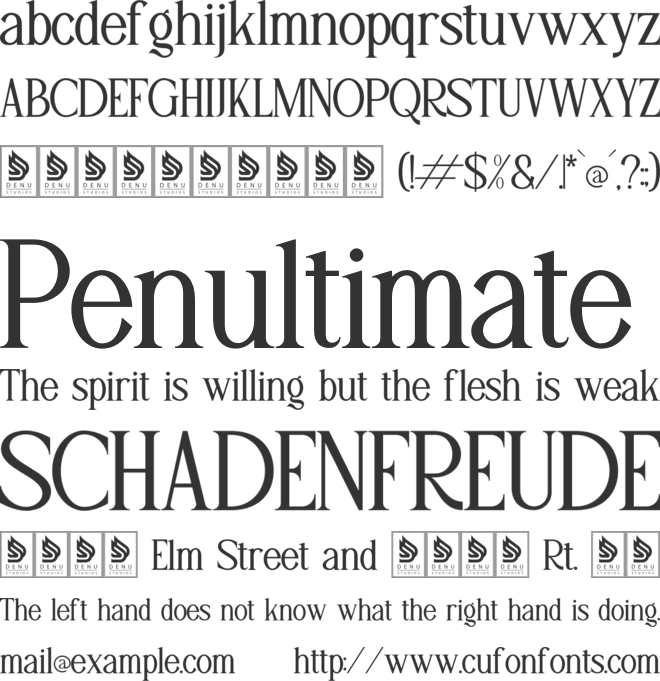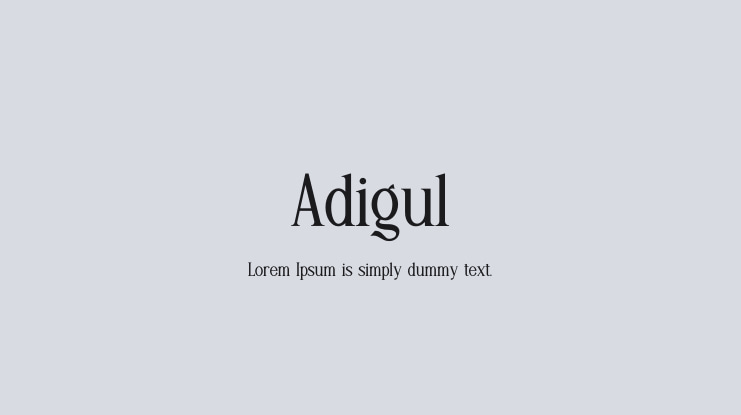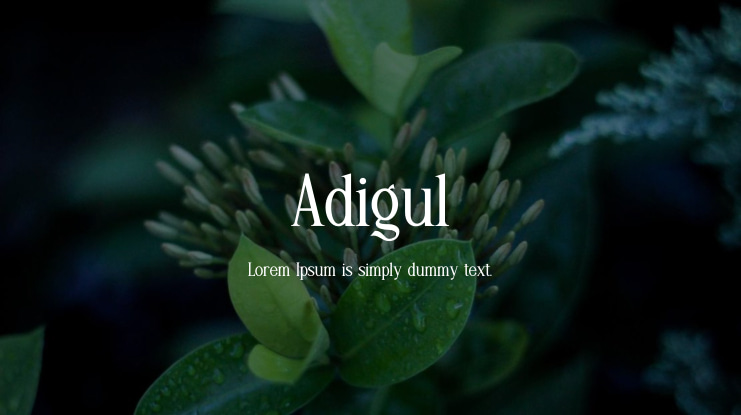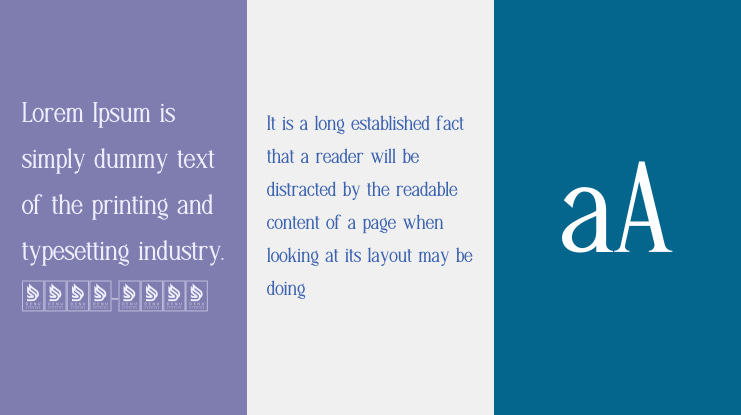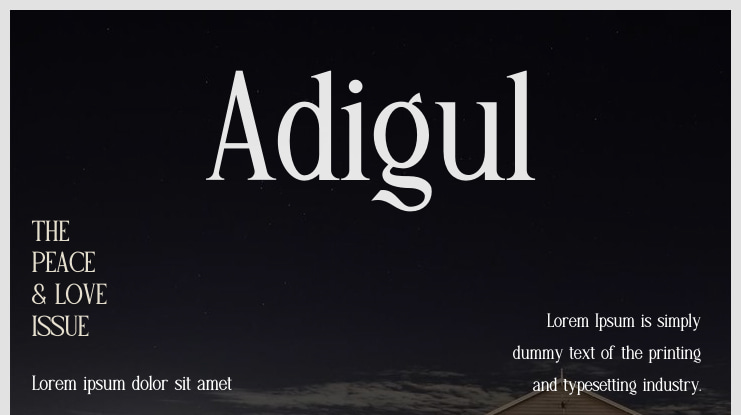
Adigul | Modern Serif is suitable for any projects such as: logos, branding projects, homeware designs, product packaging, mugs, quotes, posters, shopping bags, t-shirts, book covers, name card, invitation cards, greeting cards, label, photography, watermark, special events, and all your other lovely projects that need a Modern Serif taste.